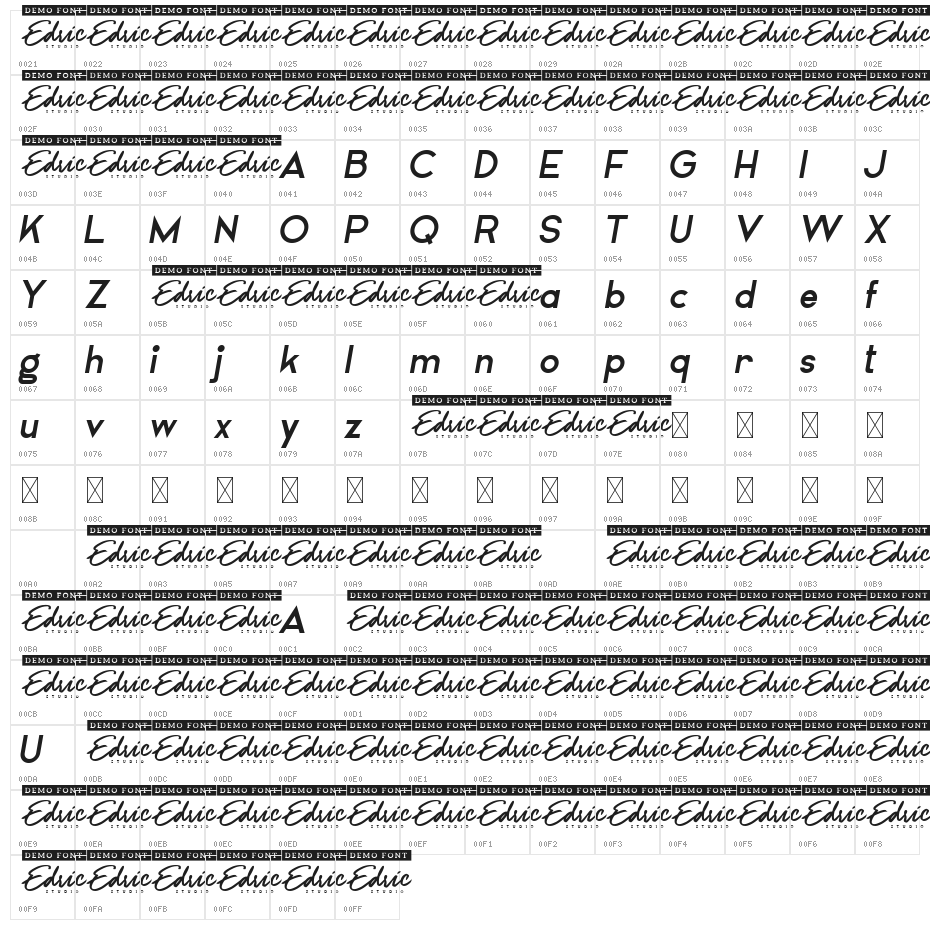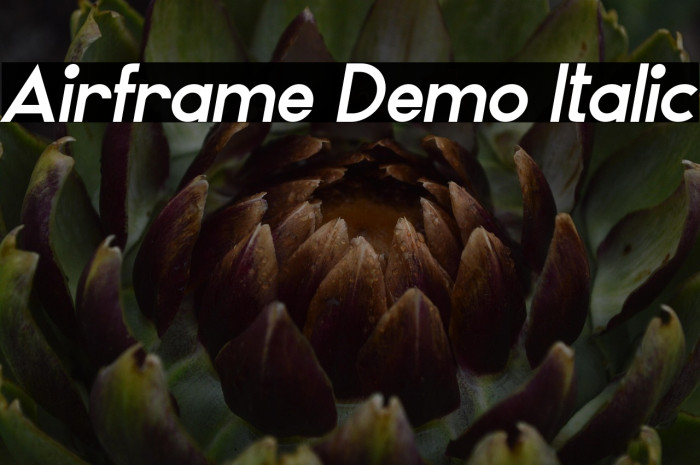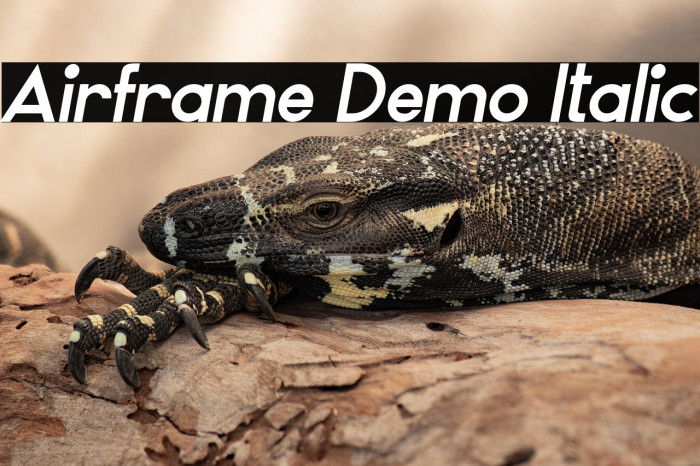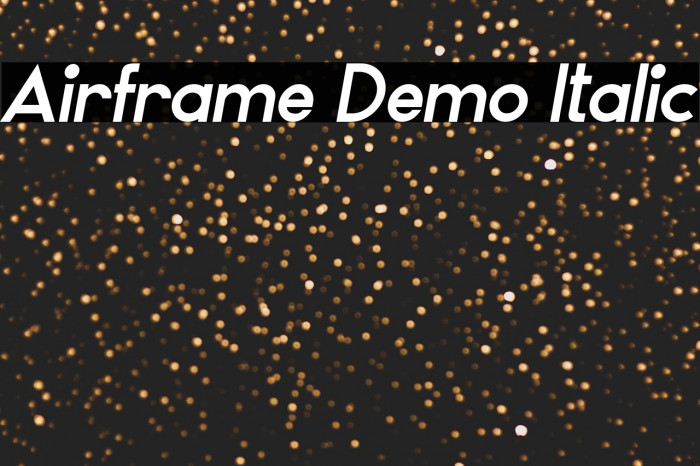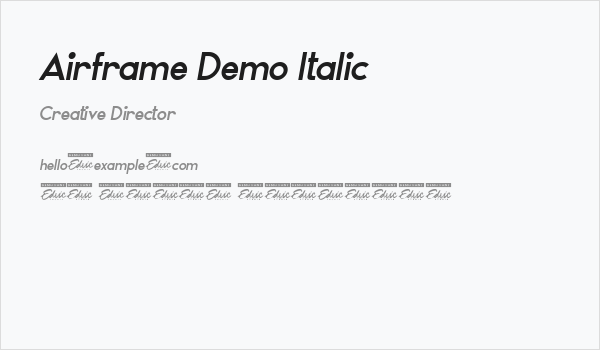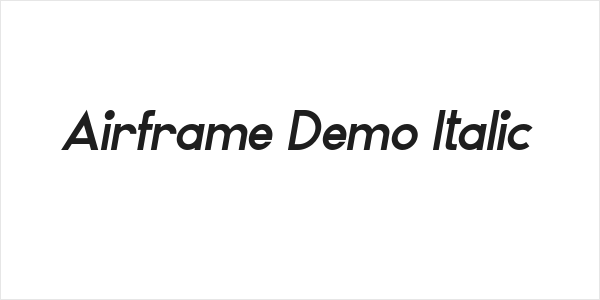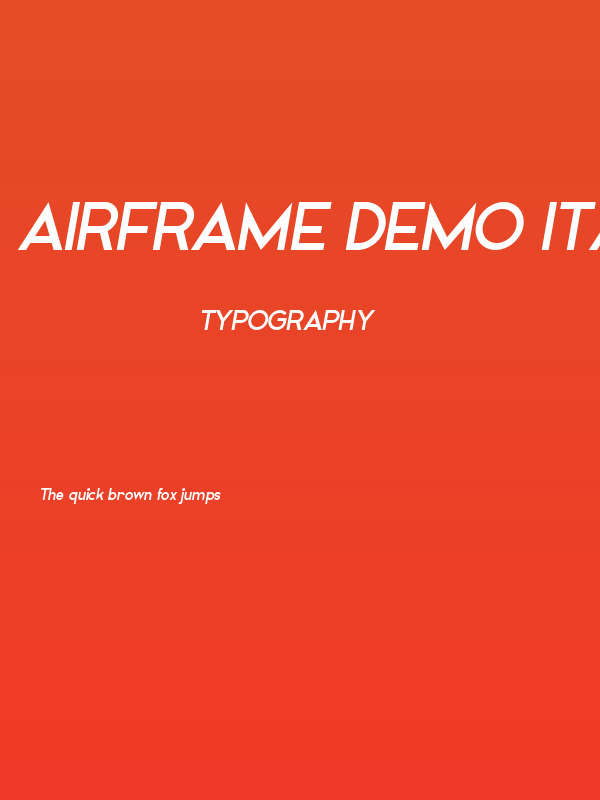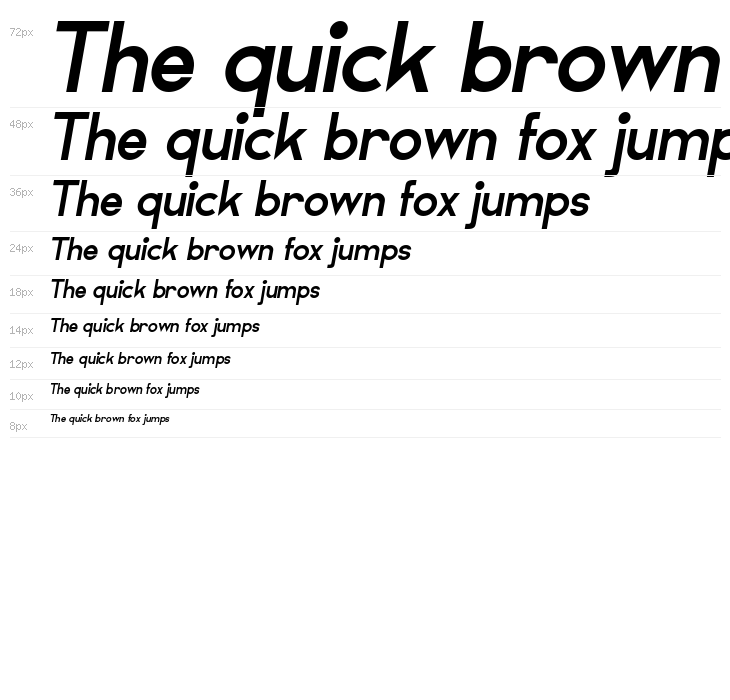
Airframe Demo Italic Font
Airframe Demo Italic Description
This font features a sleek, italicized style with a modern and aerodynamic appearance. The characters are slightly slanted, giving a sense of motion and fluidity. The uppercase letters are bold and assertive, while the lowercase letters maintain a consistent flow, enhancing readability. The font's design is clean and minimalistic, with smooth curves and sharp edges that create a dynamic visual impact. It is well-suited for projects that require a contemporary and stylish look, such as branding, advertising, and digital media. The spacing between characters is balanced, ensuring clarity and legibility across various applications.
| Proposed Projects | Ideal for branding, advertising, digital media, and modern design projects. |